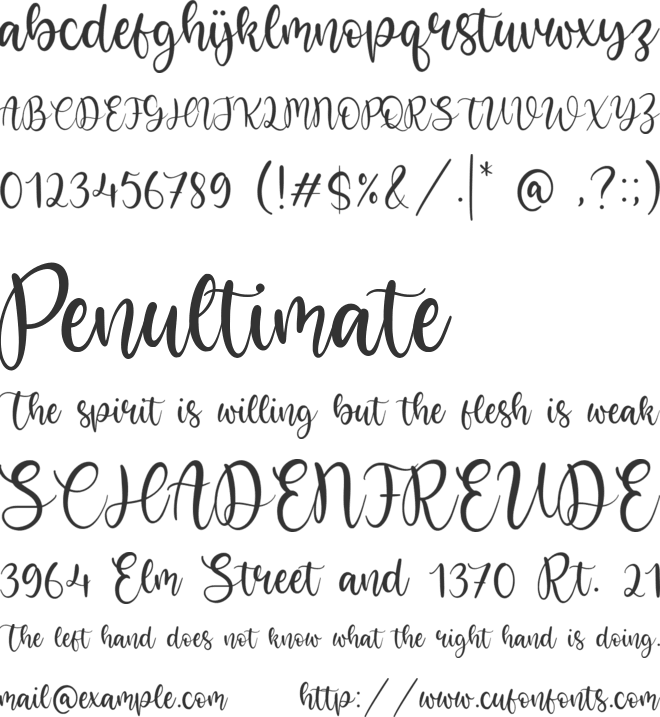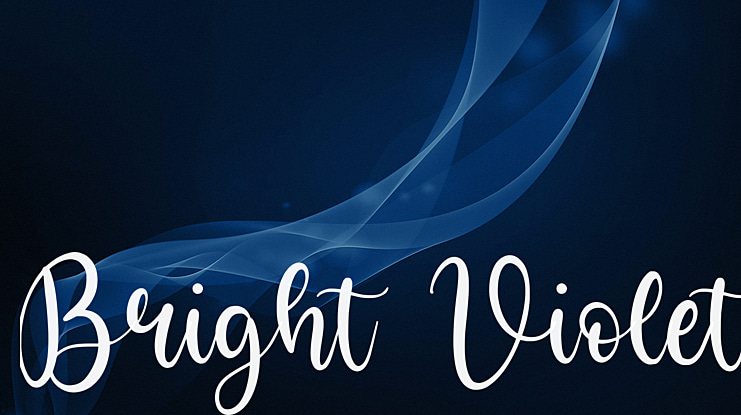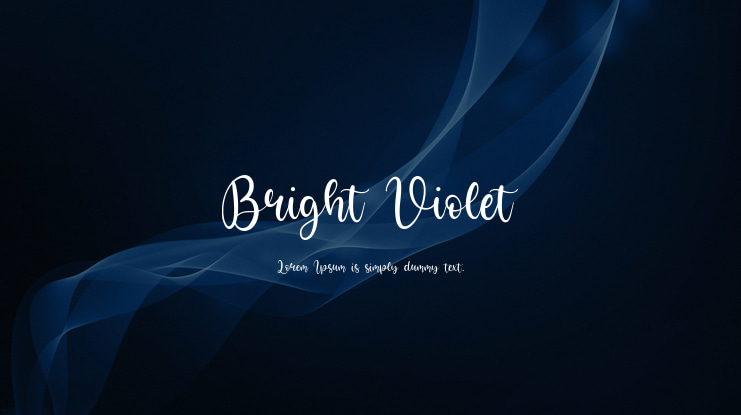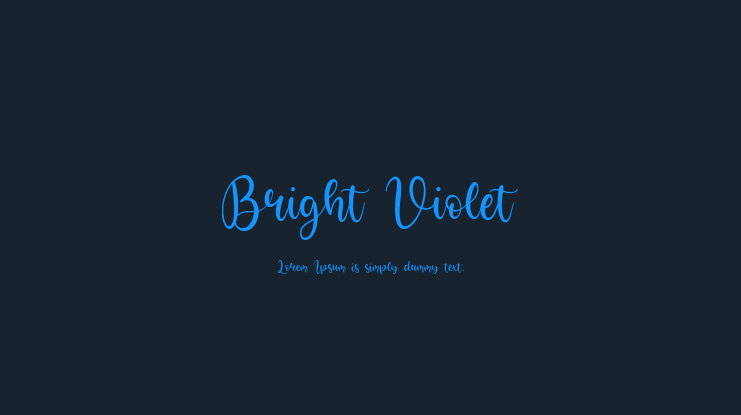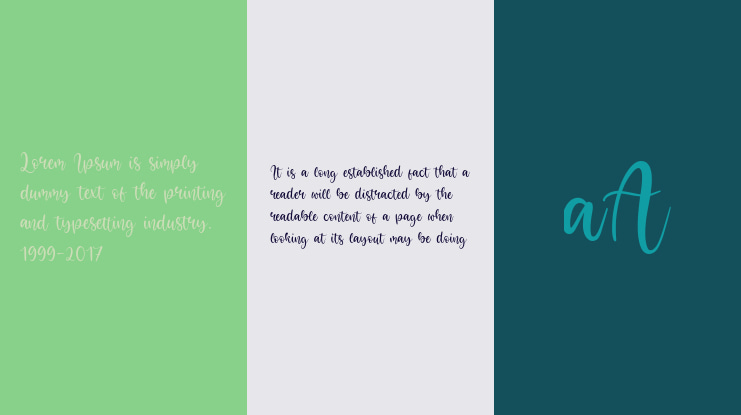
Bright Violet Font
Introducing by Letterative Studio : Bright Violet Font
Bright Violet is a Monoline Handwritten Font
Bright Violet is perfect for product packaging, branding project, megazine, social media, wedding, or just used to express words above the background.
Bright Violet also multilingual support